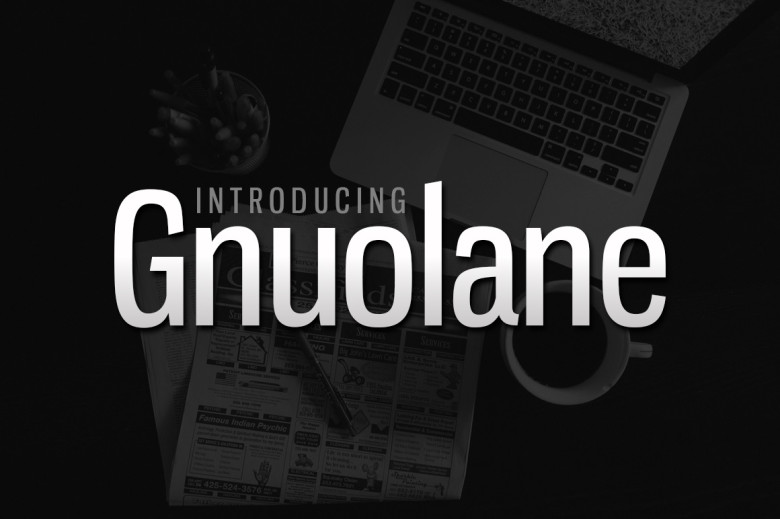
Gnuolane Font
Gnuolane, the bold compact display typeface with lots of personality. Inspired by early 20th-century grotesque and 1960s no-nonsense characteristics, Gnuolane is tough yet unique in style.
The greatness of Gnuolane lies not just in what it says, but the way that it says it. With five weights and italics to choose from you can tailor your typeface to any project. Whether you’re writing bold headlines or titles Gnuolane’s versatility means the font will always make a statement in design.
Gnuolane Jump and Gnuolane Stencil offer even more possibilities. With these variations based on the same style, you can dilute its unique personality to produce a whole host of new designs that catch your eye in any setting.